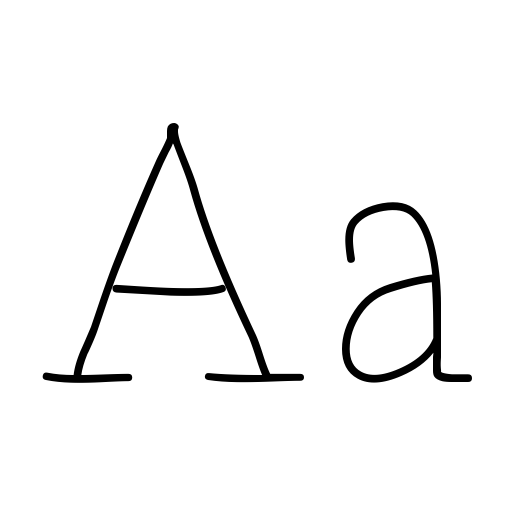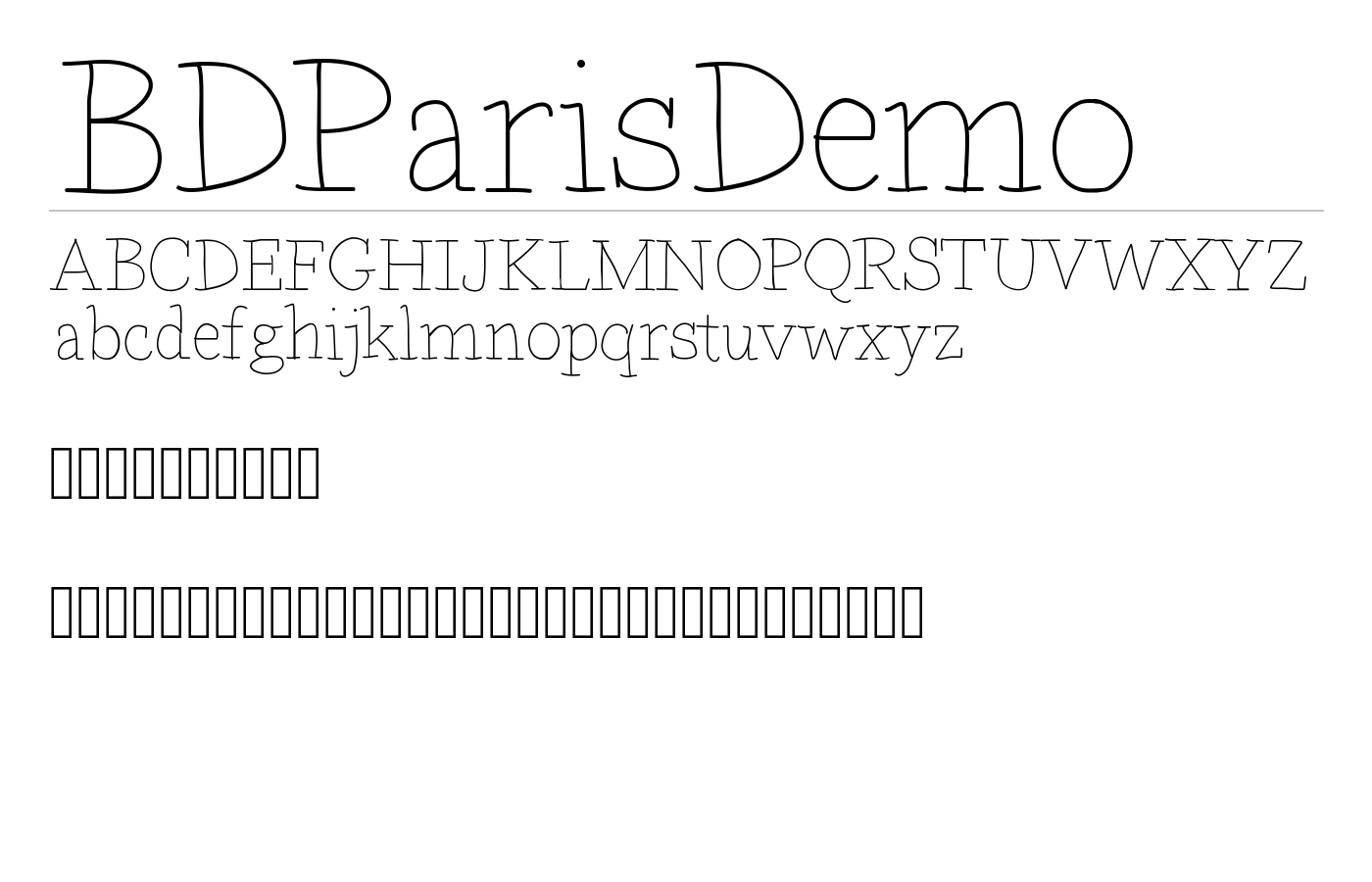
BDParisDemo is a delicate serif font with a hand-drawn, whimsical feel, characterized by its slender strokes and slightly irregular, playful letterforms. Its light weight and open spacing make it ideal for creative, informal designs such as casual branding, invitations, or editorial headlines where a charming, approachable touch is desired. This font works best in display uses where its subtle personality can shine without overwhelming the reader.
BDParisDemo Font
About BDParisDemo Font